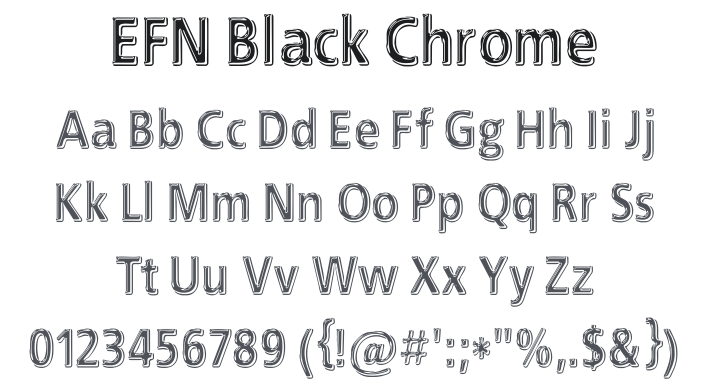
EFN Black Chrome Font
by Grzegorz Klimczewski
EFN Black Chrome Font
About EFN Black Chrome
Original decorative typeface in OpenType TT (TrueType) format. It looks good in larger sizes.